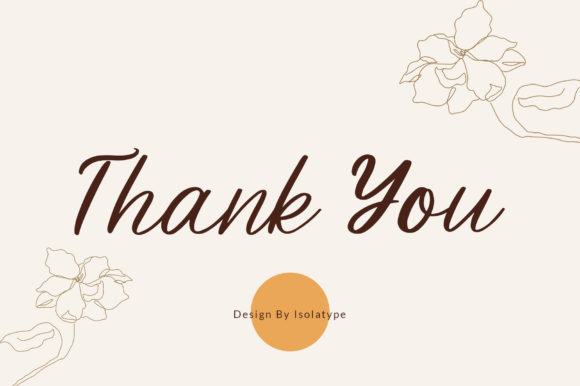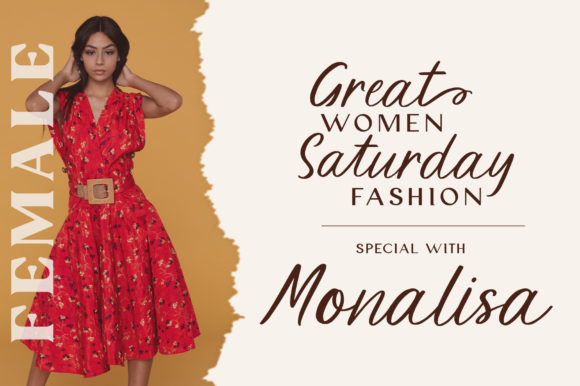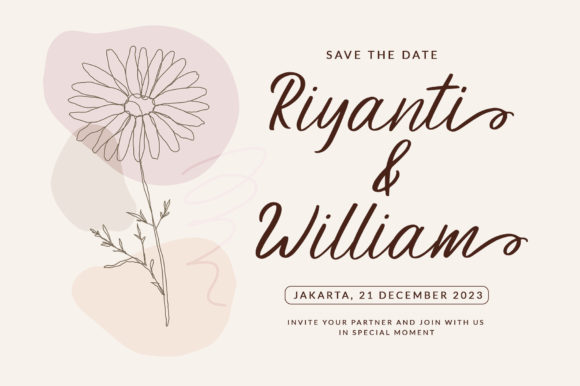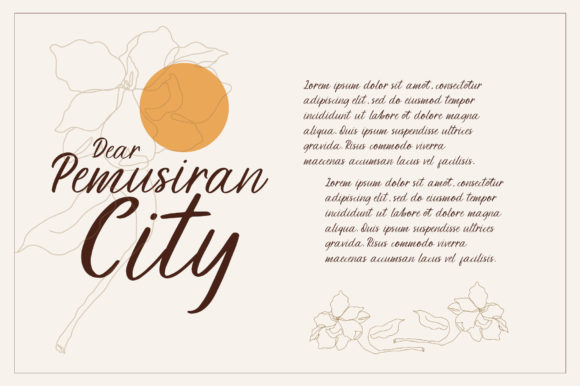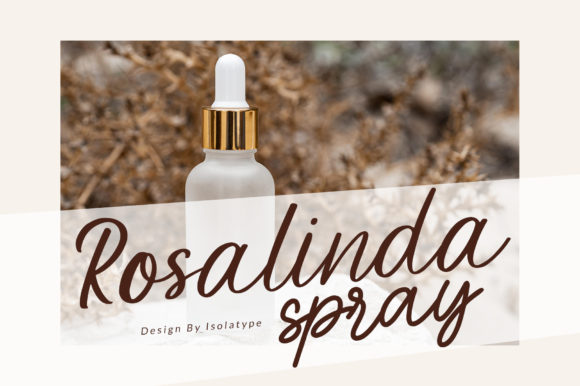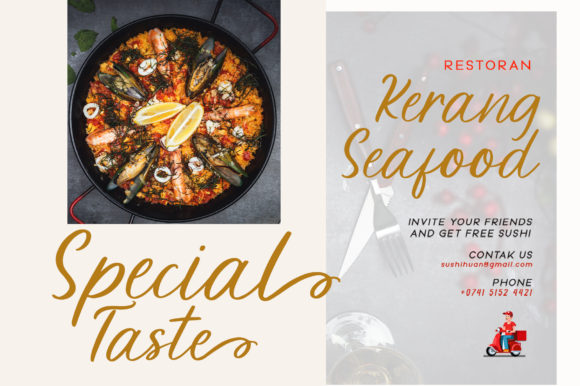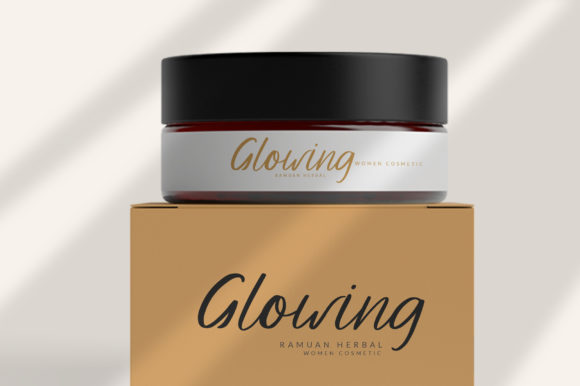
About Especially Font
Especially feels equally charming and elegant. This script font looks beautiful on wedding invitations, thank you cards, quotes, greeting cards, logos, business cards, and any other design that needs a customized touch.